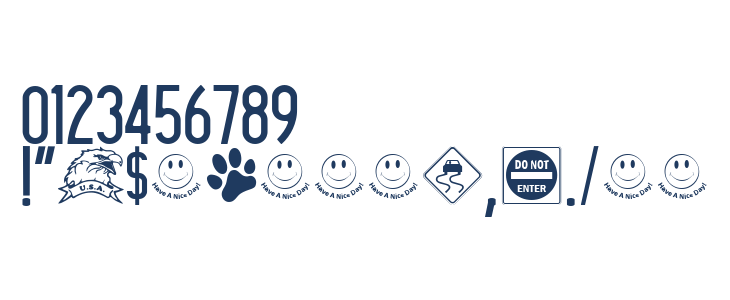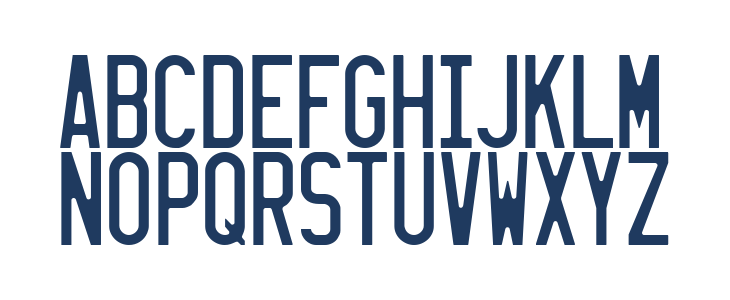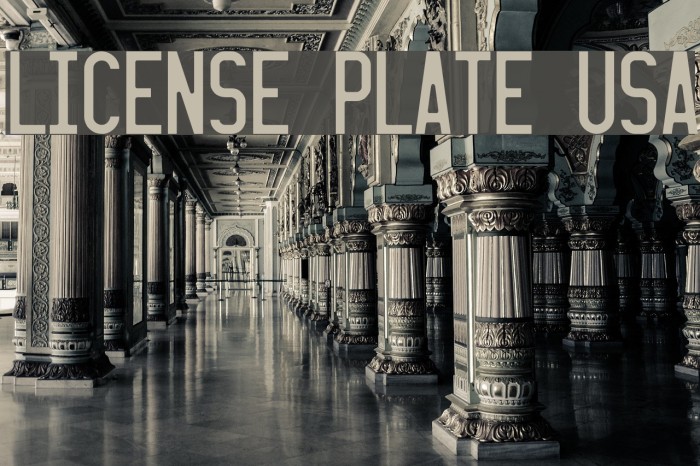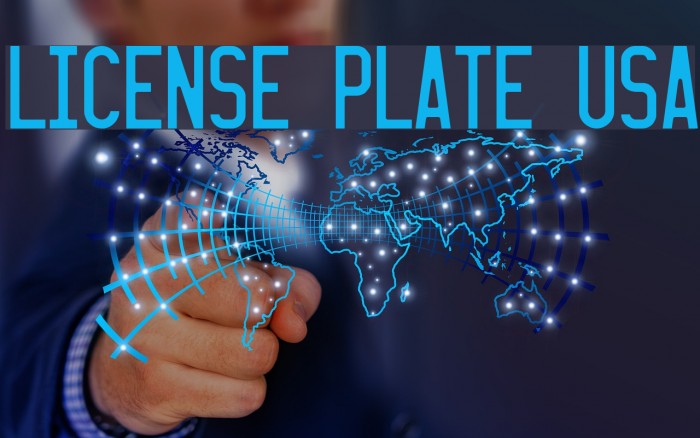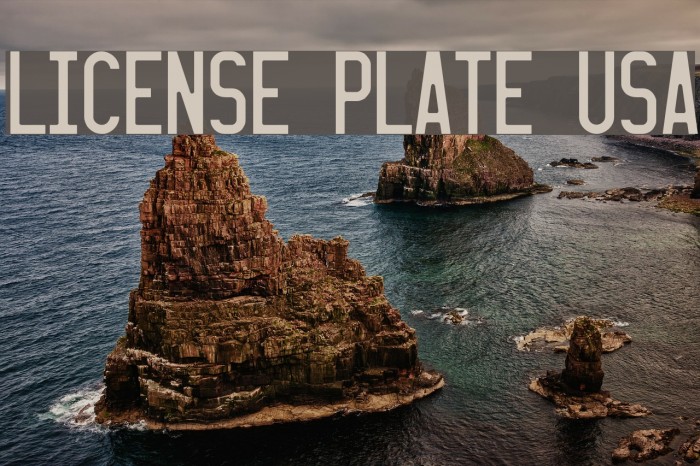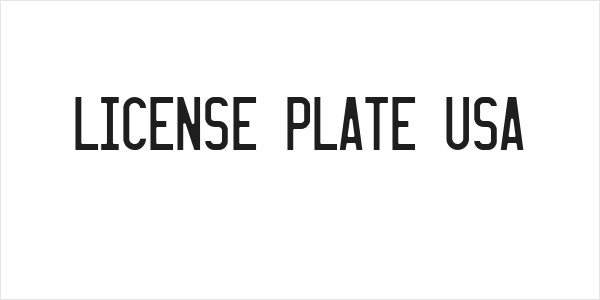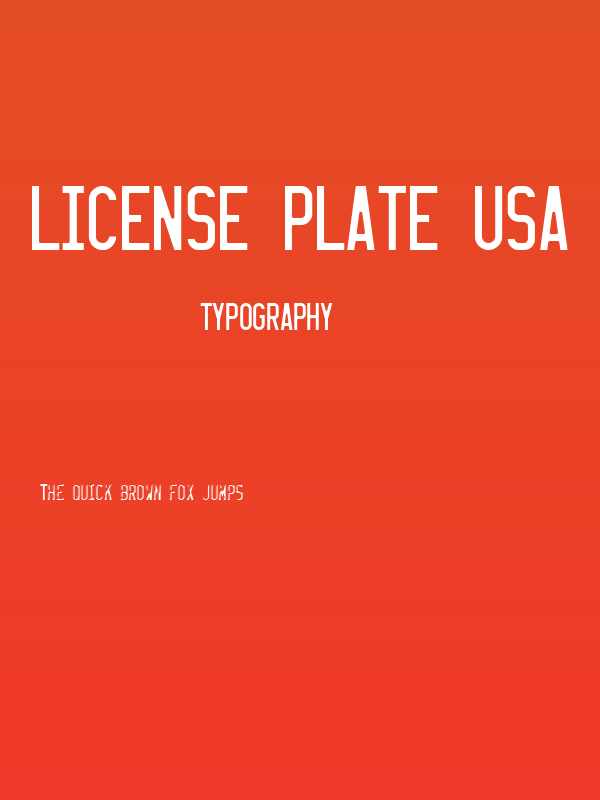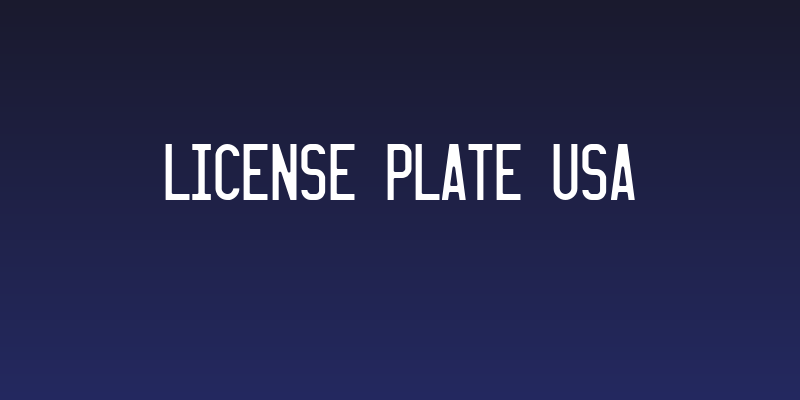
LICENSE PLATE USA Font
LICENSE PLATE USA Description
This font is characterized by its bold, uppercase letters with a strong, authoritative presence, reminiscent of traditional license plate designs. The characters are tall and narrow, with a consistent stroke width that gives them a uniform appearance. The numbers and special characters maintain the same boldness and clarity, ensuring readability from a distance. The overall design is utilitarian, focusing on legibility and straightforwardness, making it ideal for applications where clarity is paramount. The font's style is both functional and distinctive, capturing the essence of classic American license plates.
| Use Case | Headlines, Signage, Branding |
| Proposed Projects | Ideal for vehicle branding, signage, posters, and any project requiring a bold, clear typeface. |